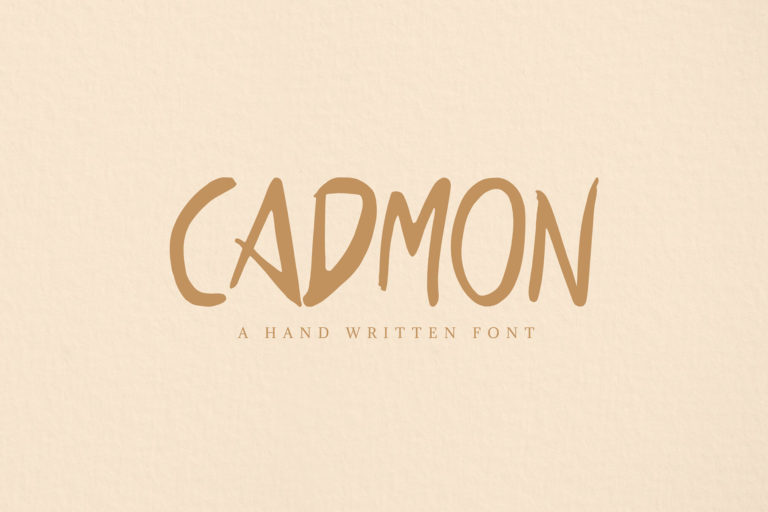
- Cadmon Handwritten Font
Cadmon is a classy, sober and authentic handwritten font that will make this font perfect match for any project. It contains uppercase, lowercase, numbers, punctuation and symbols with multilingual support. This font will pair beautifully with signature, sans serif or handwriting style. Cadmon can be used for headlines, posters, branding, packaging, presentations, logo, quotes, titles, magazines headings, web layouts, promotion, advertising, invitations, packaging design, books and nearly any creative design.